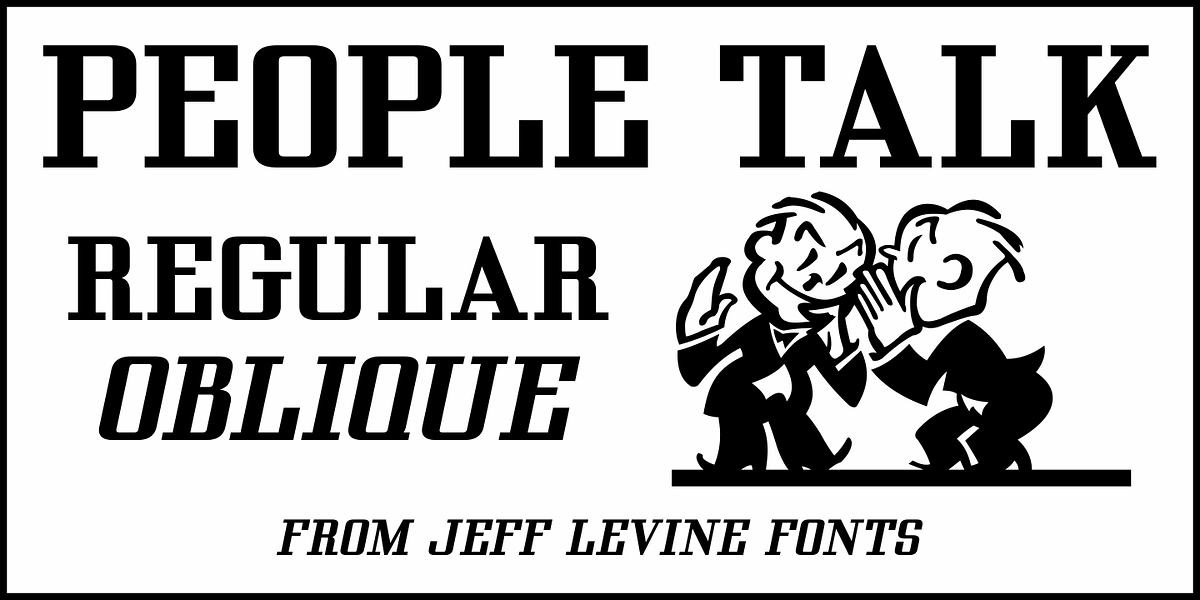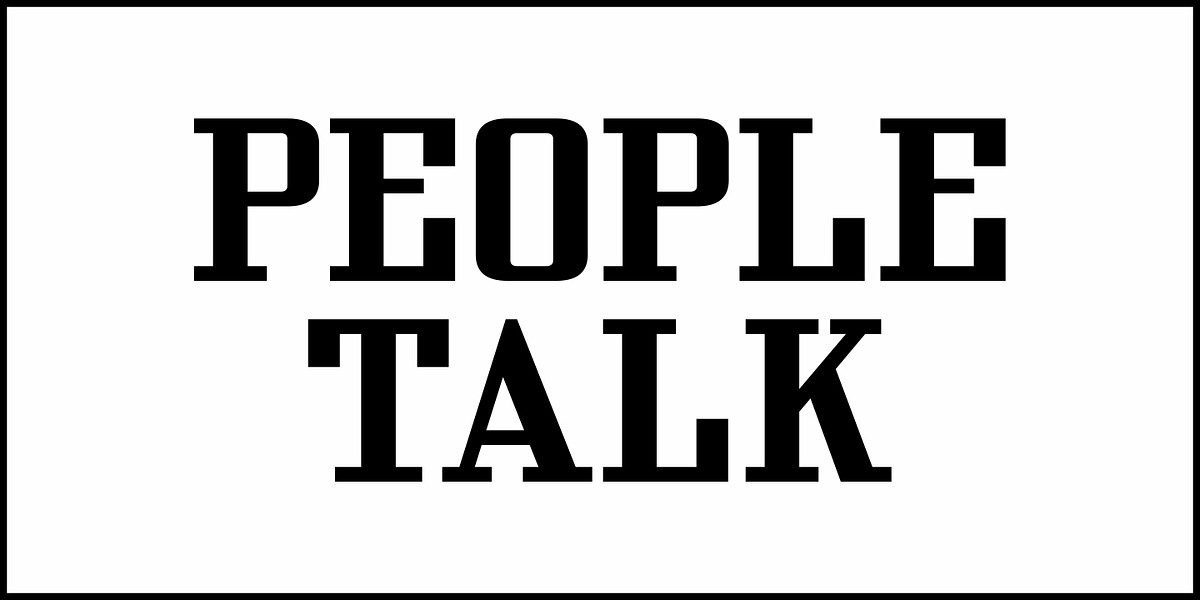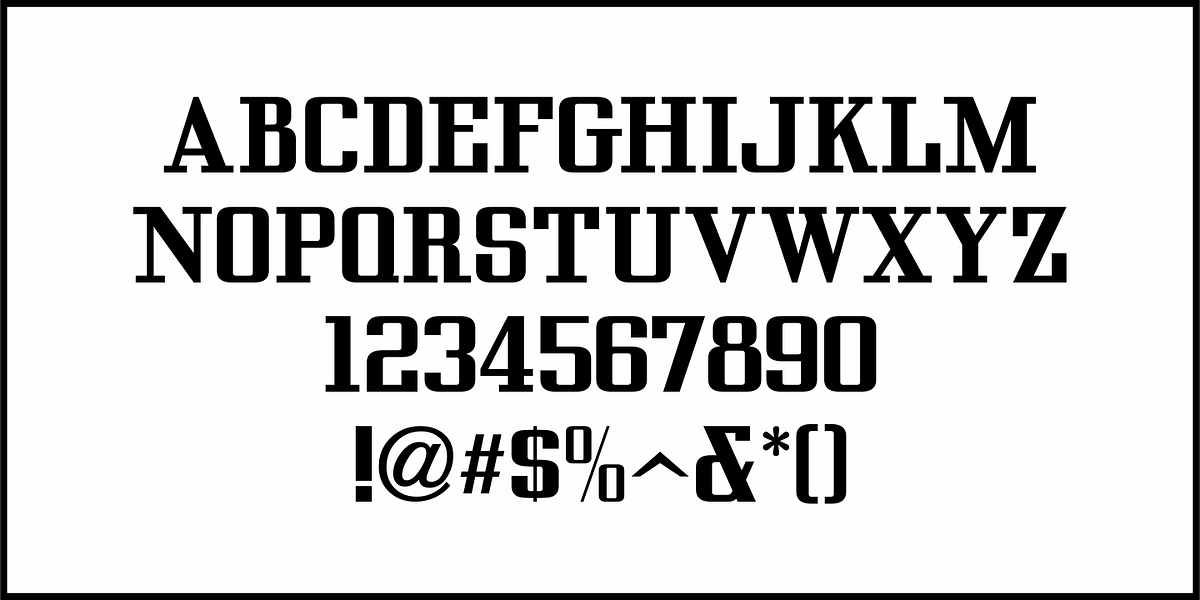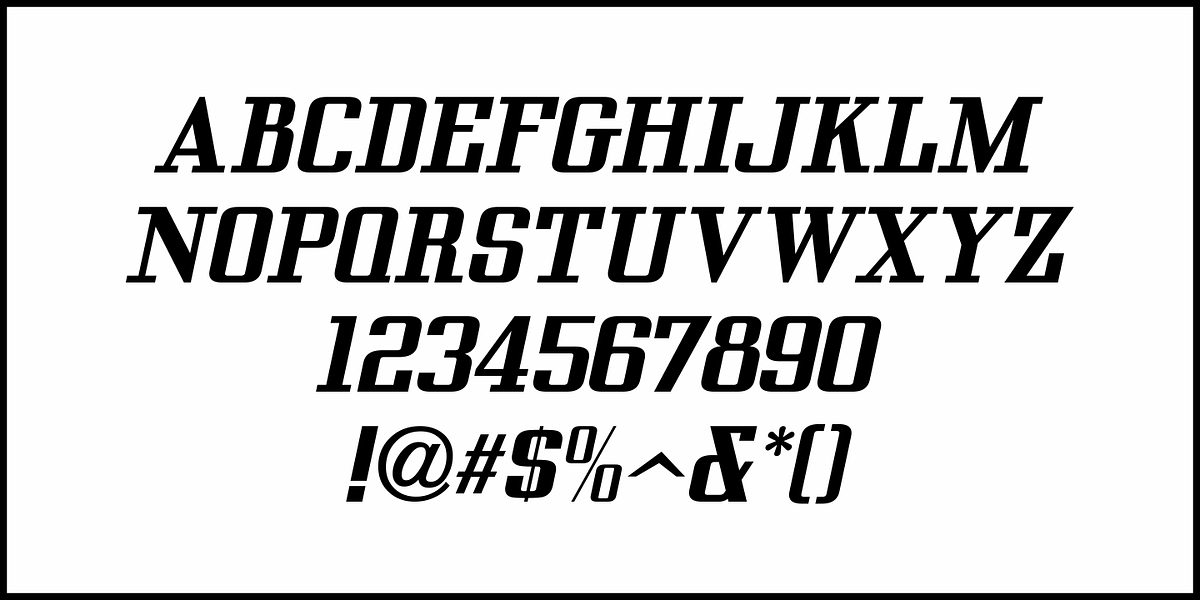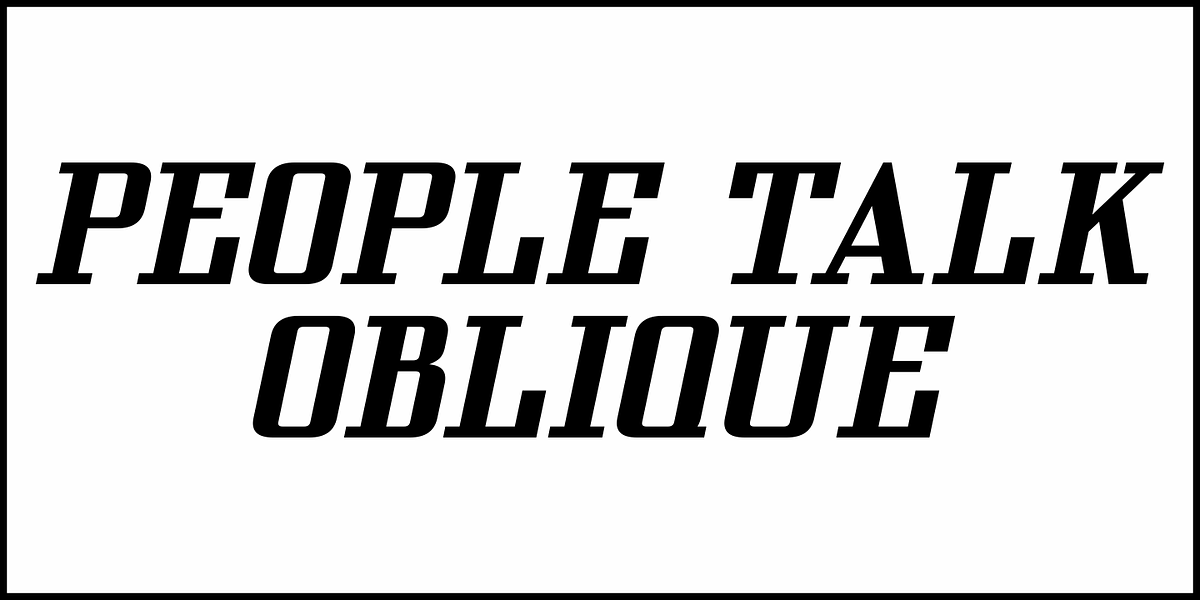
People Talk JNL
A title card with cast credits for the 1935 movie “The Whole Town’s Talking” (starring Edward G. Robinson and Jean Arthur) formed the basis for People Talk JNL.
The hand lettered names were done in a slightly condensed slab serif – mostly rectangular in shape with rounded corners. A few characters take on their own unique appearance.
People Talk JNL is available in both regular and oblique versions.